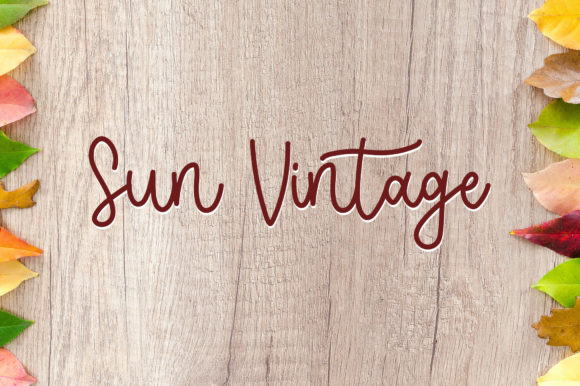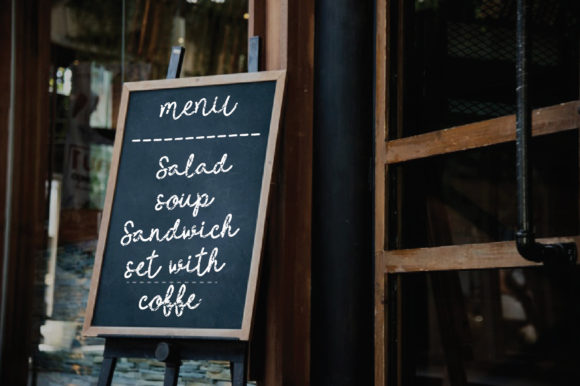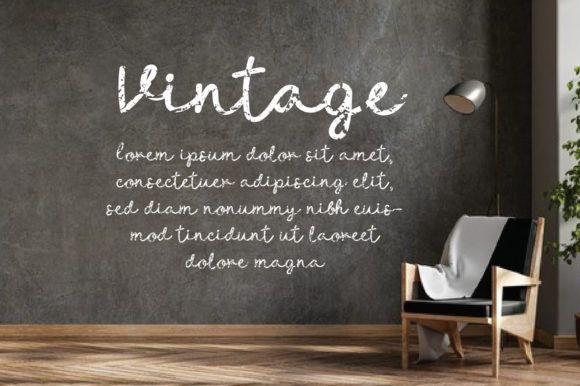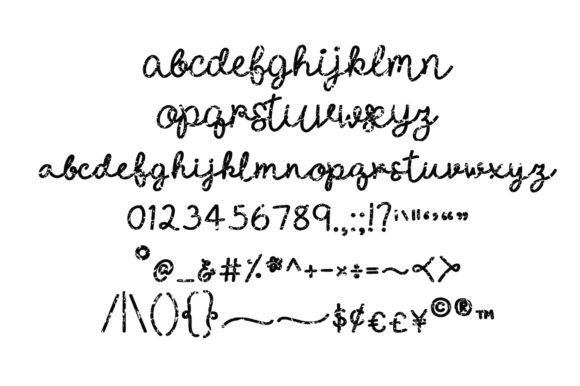
About Handyman Script Rustic Font
Handyman Script Rustic is a lovely and rough-textured handwritten font. It is the best choice for creating eye-catching logos, branding and quotes. Every letter has a unique and beautiful touch, which will make your design come alive!